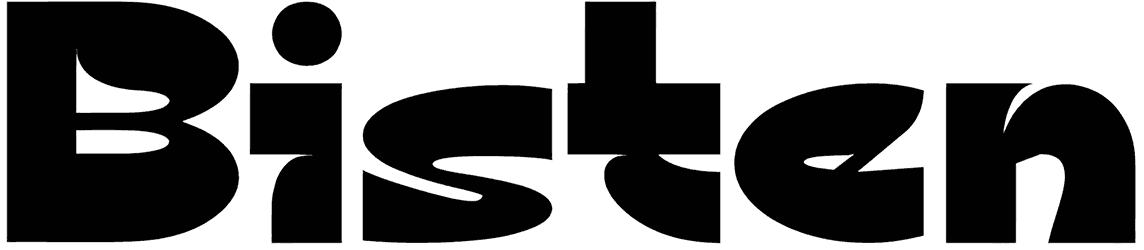
Bisten Font
What’s a better way to ensure an interesting visual aspect for your lettering than with a font as playful as Bisten? As you see, the letters curve in the most unexpected way to deliver something quirky and thus worthy of attention.
Consider this bold font the perfect fit for your various posters promoting apparel stores and other businesses, as well as parties, karaoke, and any other entertaining activities. With a retro font as peculiar as Bisten, you can wow everyone.